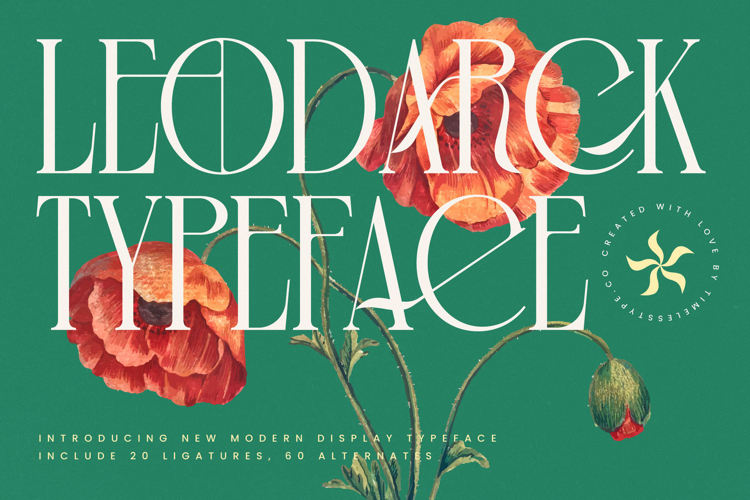
Leodarck - Modern Display Typeface
The Leodarck Typeface is a modern display serif font with an elegant, artistic, and contemporary style. Featuring 20 ligatures and 60 stylistic alternates, this font is designed to deliver expressive, refined typography with rich visual variety. Its tall proportions, fine details, and geometric ornaments bring a modern-classic aesthetic, making it perfect for design projects that require a unique and sophisticated visual appeal.
This typeface works beautifully in editorial design, such as magazine covers, fashion article layouts, and art books. With its variety of ligatures and alternates, every typographic composition can appear dynamic and full of character.
In branding and packaging, Leodareck is ideal for luxury fashion labels, cosmetics, wines, perfumes, and premium lifestyle brands. Its modern serif aesthetic adds a prestigious touch, making logos and brand identities more memorable.
For entertainment and promotional design, this font shines on movie posters, music albums, event branding, and art festivals. Its distinctive and decorative character adds artistic value while creating an engaging, dramatic atmosphere.
In the realm of digital design, Leodareck performs seamlessly across social media content, website branding, digital advertising, and motion graphics. Its slim yet elegant forms maintain strong readability across all screen sizes. With multilingual support, it adapts effortlessly to global-scale projects.
In short, Leodarck Typeface is a modern serif display font created to embody elegance, luxury, and contemporary artistic style. Perfect for editorial, branding, packaging, entertainment, advertising, and digital campaigns, this font transforms typography into a timeless and captivating visual icon.